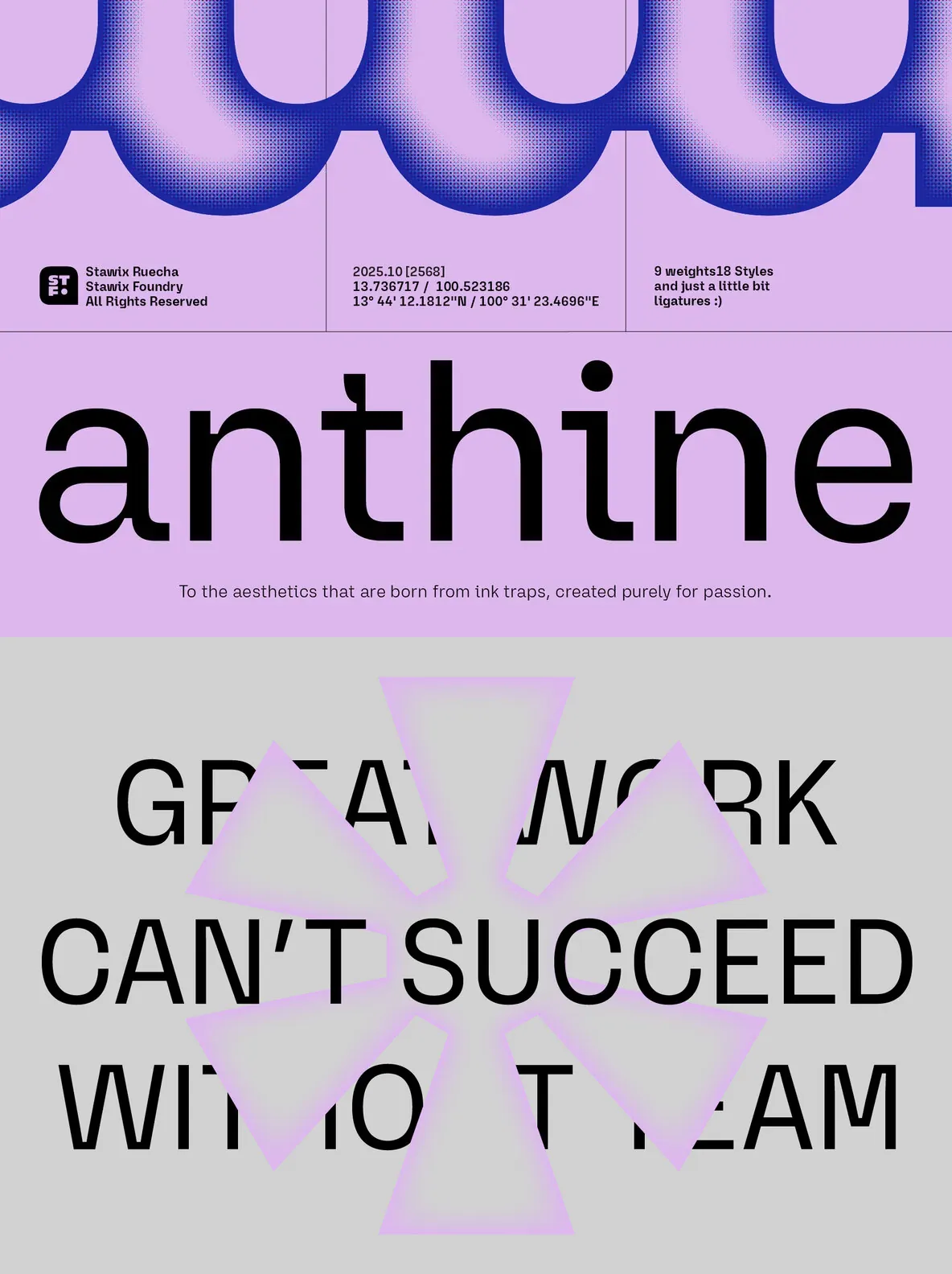
Anthine — Ink Traps, Made Distinct
Typography goes beyond shapes and letters. It sits where clarity meets expression. Anthine follows that idea by taking subtle ink trap aesthetics and making them a defining feature. The result is a typeface with sharp precision, a modern feel, and a distinct personality that holds attention across sizes and contexts.
With a range that includes nine weights and eighteen styles, Anthine gives you practical flexibility—from lighter cuts to bold display forms. Balanced proportions and carefully considered details keep the design steady and readable, while the ink trap character adds edge. Use Anthine for branding, editorial layouts, and digital projects when you want consistent clarity and a strong visual impact.